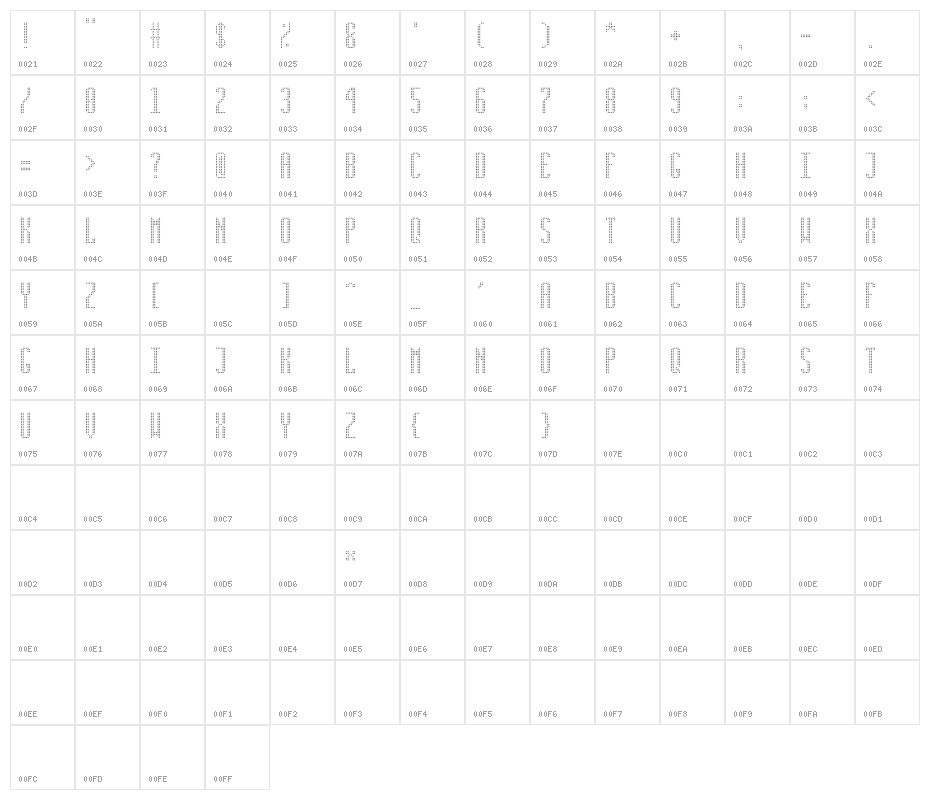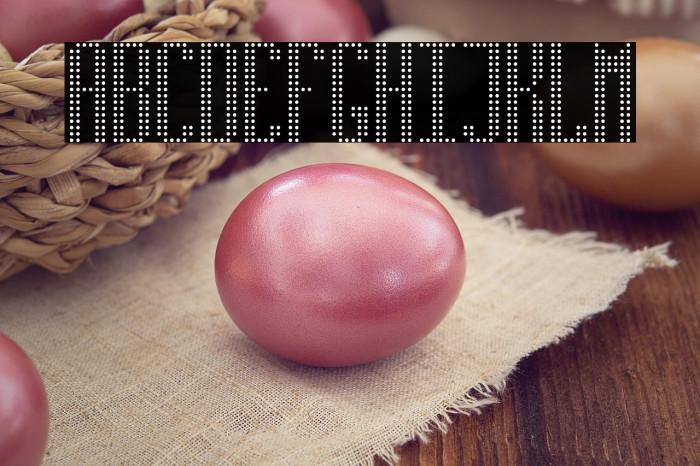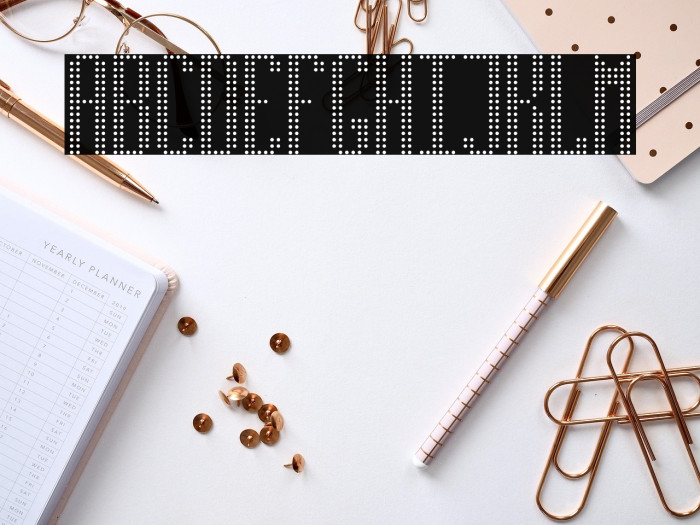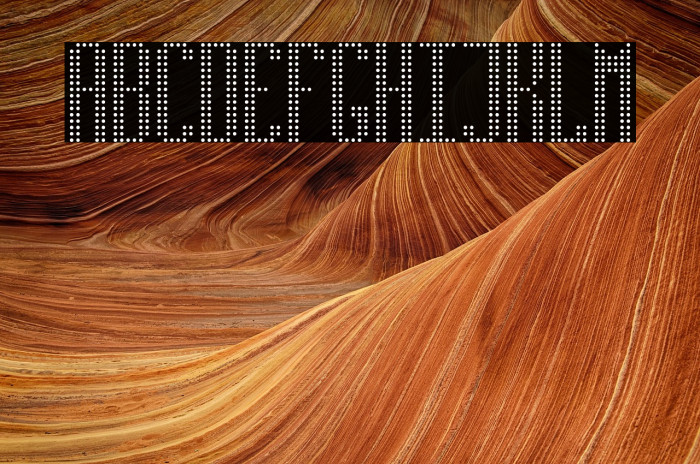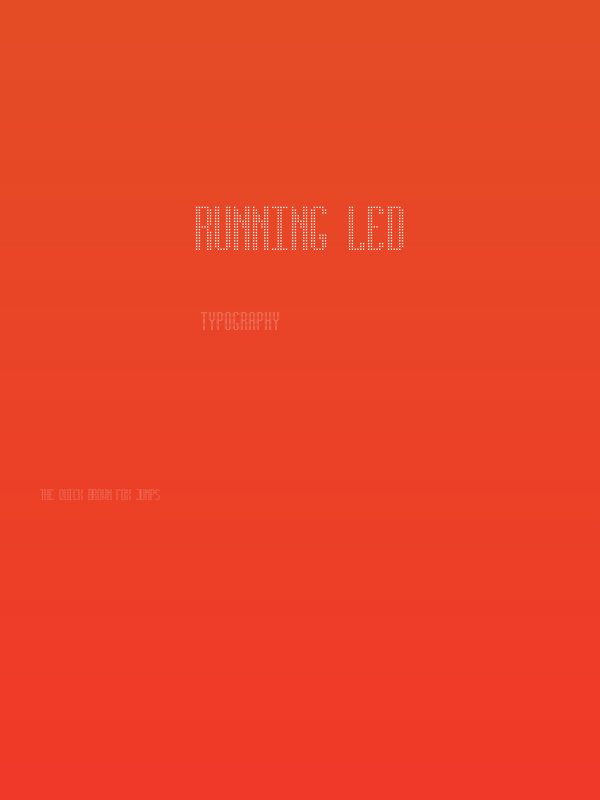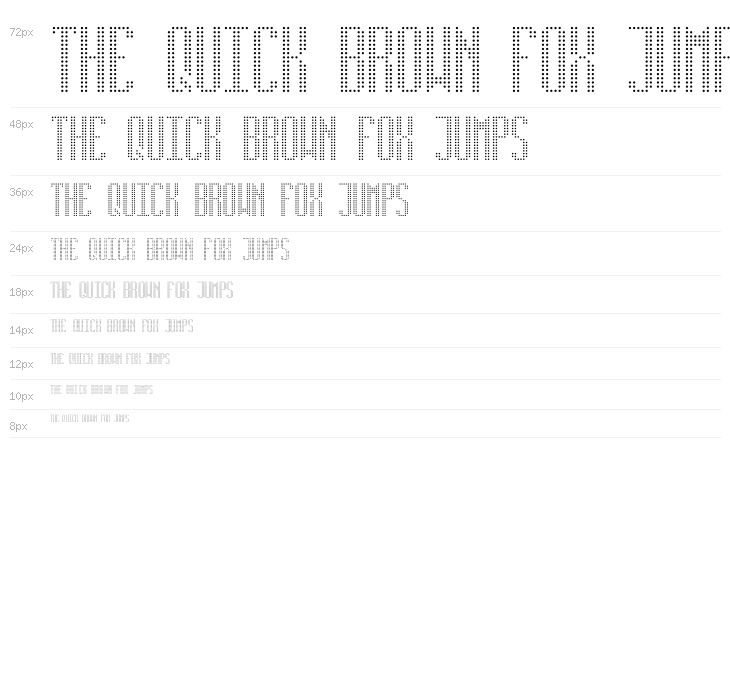
RUNNING LED Font
RUNNING LED Description
This font features a distinctive dot matrix style, reminiscent of old LED displays. Each character is composed of a grid of dots, creating a digital and retro aesthetic. The uppercase and lowercase letters, as well as numbers and special characters, maintain a consistent dot pattern, ensuring uniformity across the set. The design is clean and geometric, with each character clearly defined by the arrangement of dots. This style evokes a sense of nostalgia, making it ideal for projects that aim to capture a vintage or tech-inspired look.
Fonts by Repiputra Irawan
| Use Case | Headlines, Logos, Digital Displays |
| Proposed Projects | Ideal for digital displays, retro-themed designs, tech-related branding, and any project requiring a vintage digital aesthetic. |